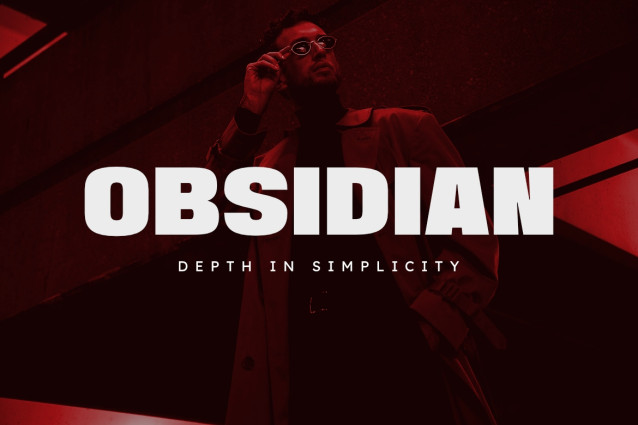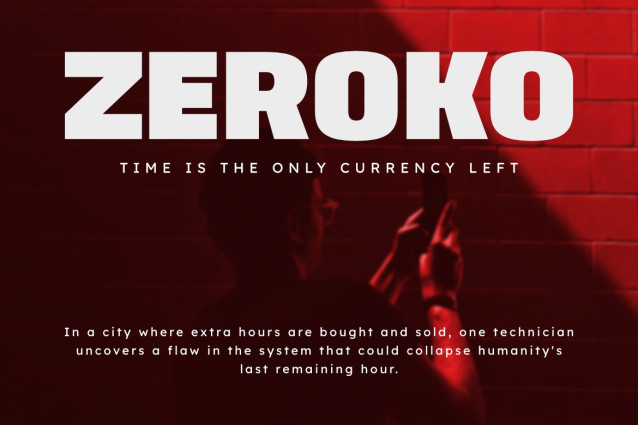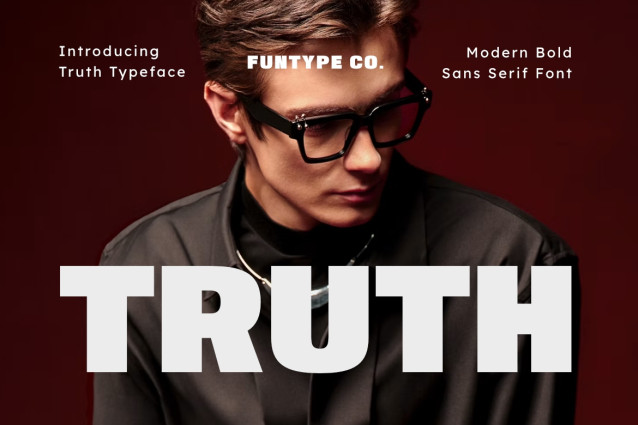
Truth – Modern Bold Sans Serif Font
Truth is a powerful, heavy, and modern bold sans serif display font, engineered to deliver an authoritative presence, wide geometric stability, and a high-end display aesthetic to contemporary design layouts. Featuring solid block letterforms, heavy horizontal presence, and clean geometric cuts, Truth introduces a high-concept magazine editorial identity, luxury corporate branding, architectural showcase presentation, and prominent digital media design built to claim absolute visual focus.
This font family is the ultimate choice for creative directors, publication designers, and brand managers looking to implement a robust typography identity for major text hierarchies. Whether you are developing bold corporate enterprise logotypes, high-fashion editorial covers, luxury perfume and cosmetics packaging, cinematic movie title sequences, architectural showcase headers, or prominent digital web banners, Truth stands out with supreme legibility and commanding structural confidence.